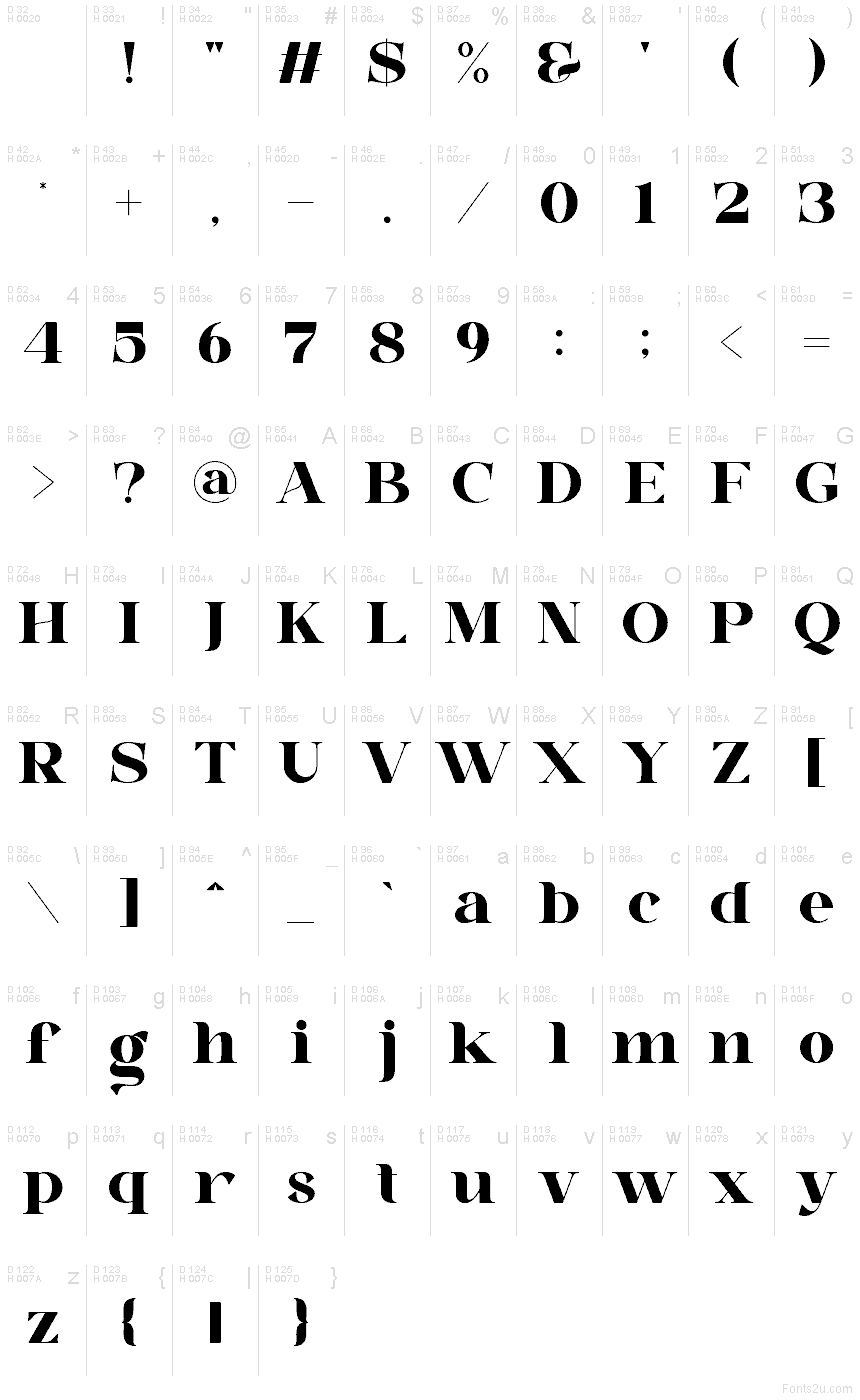
Chalsse Regular
Chalsse font by Ermedia Studio is a free high-contrast serif display font. Its defining feature is the sculpted rhythm—thick, inky strokes that collapse into razor-thin hairlines and scooped counters, creating a dramatic play of light and shadow. The curves feel carved rather than drawn, giving headlines a tactile, almost glossy presence that reads luxurious without trying too hard.
This free font shines on luxury branding, magazine mastheads, beauty packaging, event invitations, wine labels, and bold poster headlines. Using Chalsse at larger sizes lets the contrast breathe and the curves sing; add a touch of generous tracking for crisp clarity. Simple pairing tip: match it with a neutral grotesque sans for body copy to keep the spotlight on Chalsse’s sculpted drama.